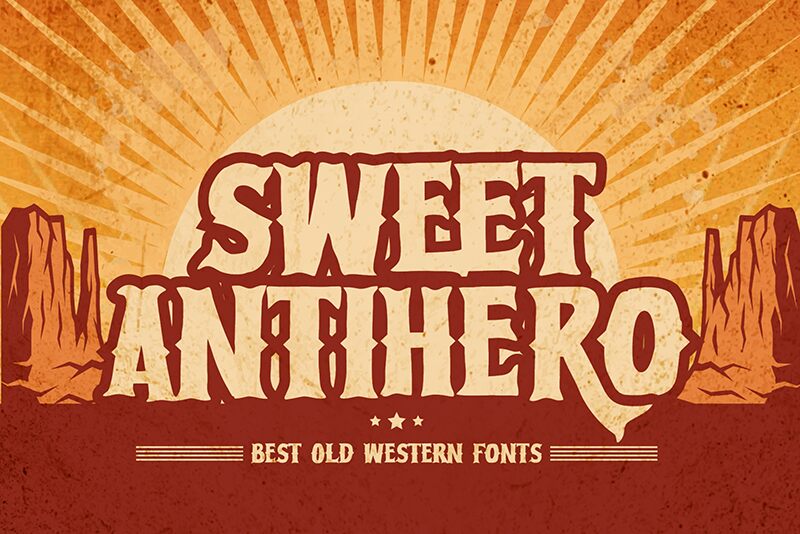
Sweet Antihero font is a typeface inspired by Western country style font. The condensed bold letter shapes give it a vintage feel. This font has an ethnic and fashionable look, making it ideal for various creative designs with unique ideas requiring classic touch.
Sweet Antihero is particularly well-suited for logos, headlines, headers, brochures, advertisements, posters and others. With its versatility for different genres this typeface can be a reliable asset in your design toolkit.